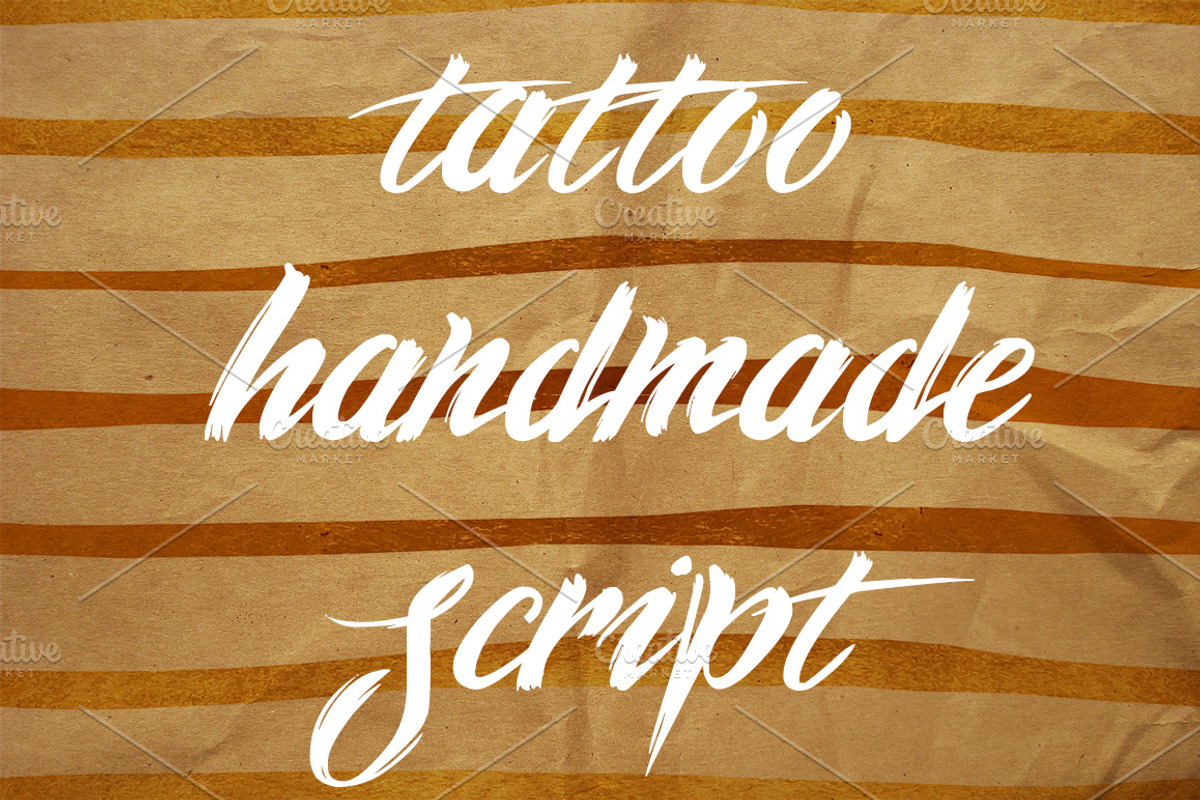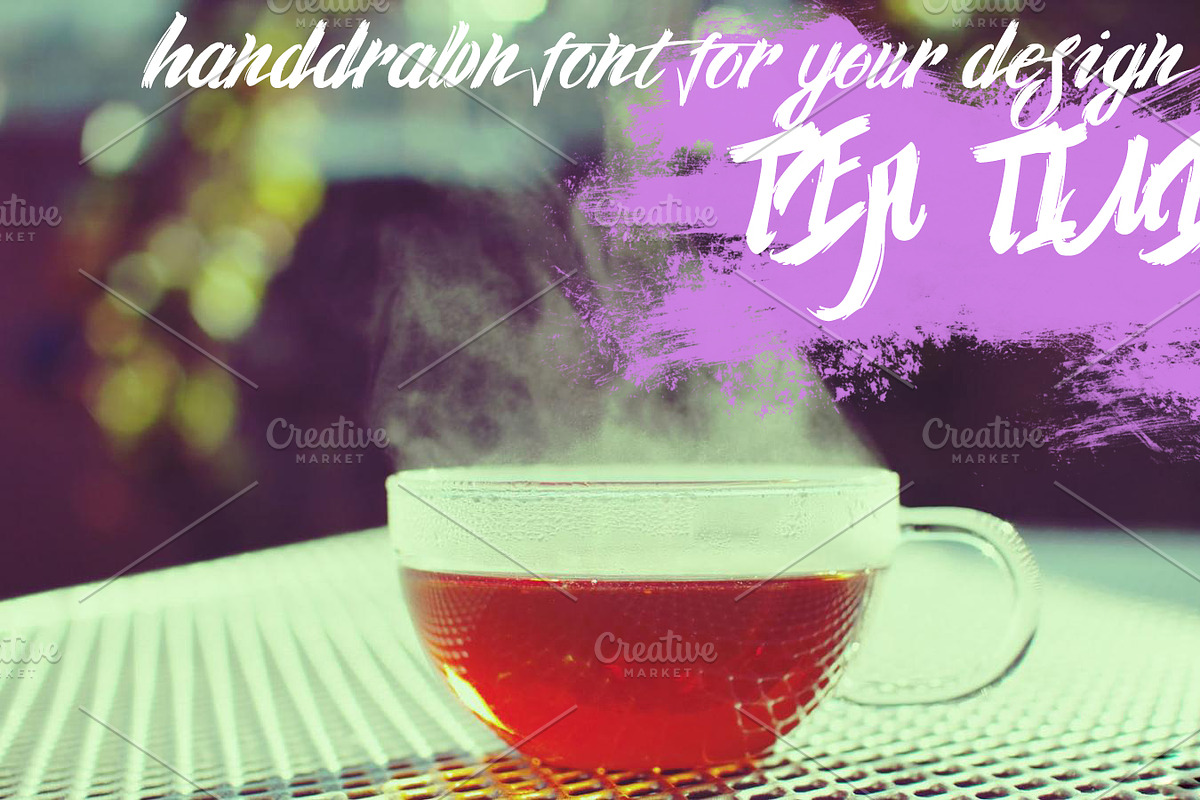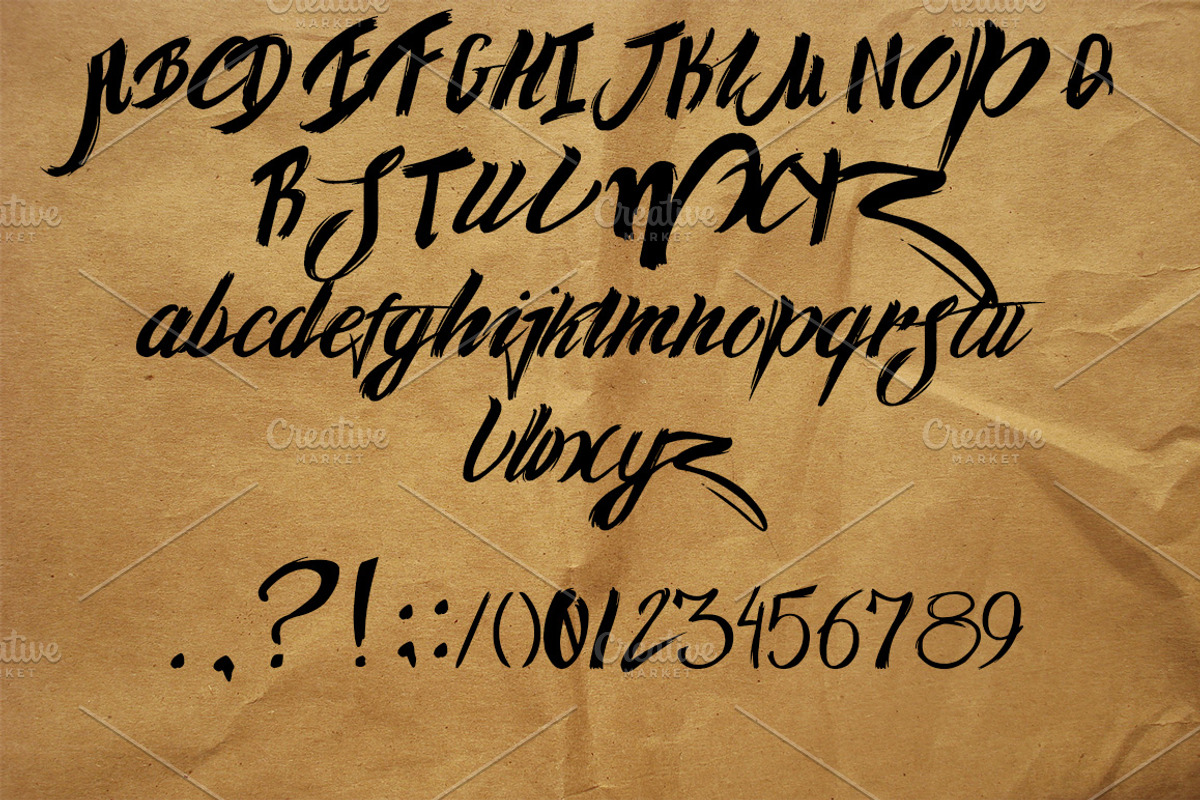
Graffiti font script
Graffiti font script by Vavavka is a font selected for branding, posters, packaging, typography.
- It includes all the letters of the Latin alphabet, figures, question mark, exclamation mark, comma, dot.
Why Graffiti font script is worth a look
Graffiti font script by Vavavka fits naturally into Branding, posters, packaging, typography.